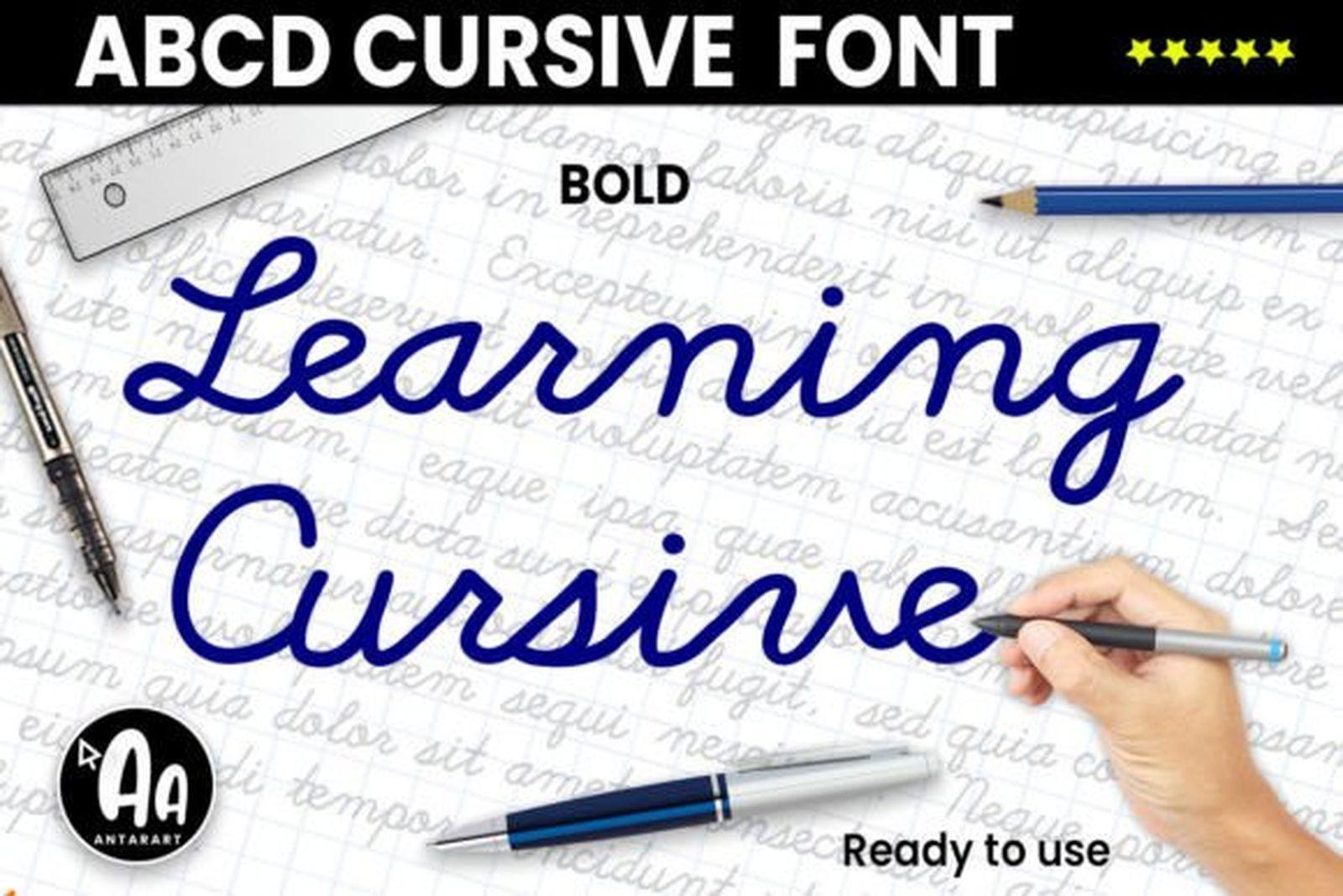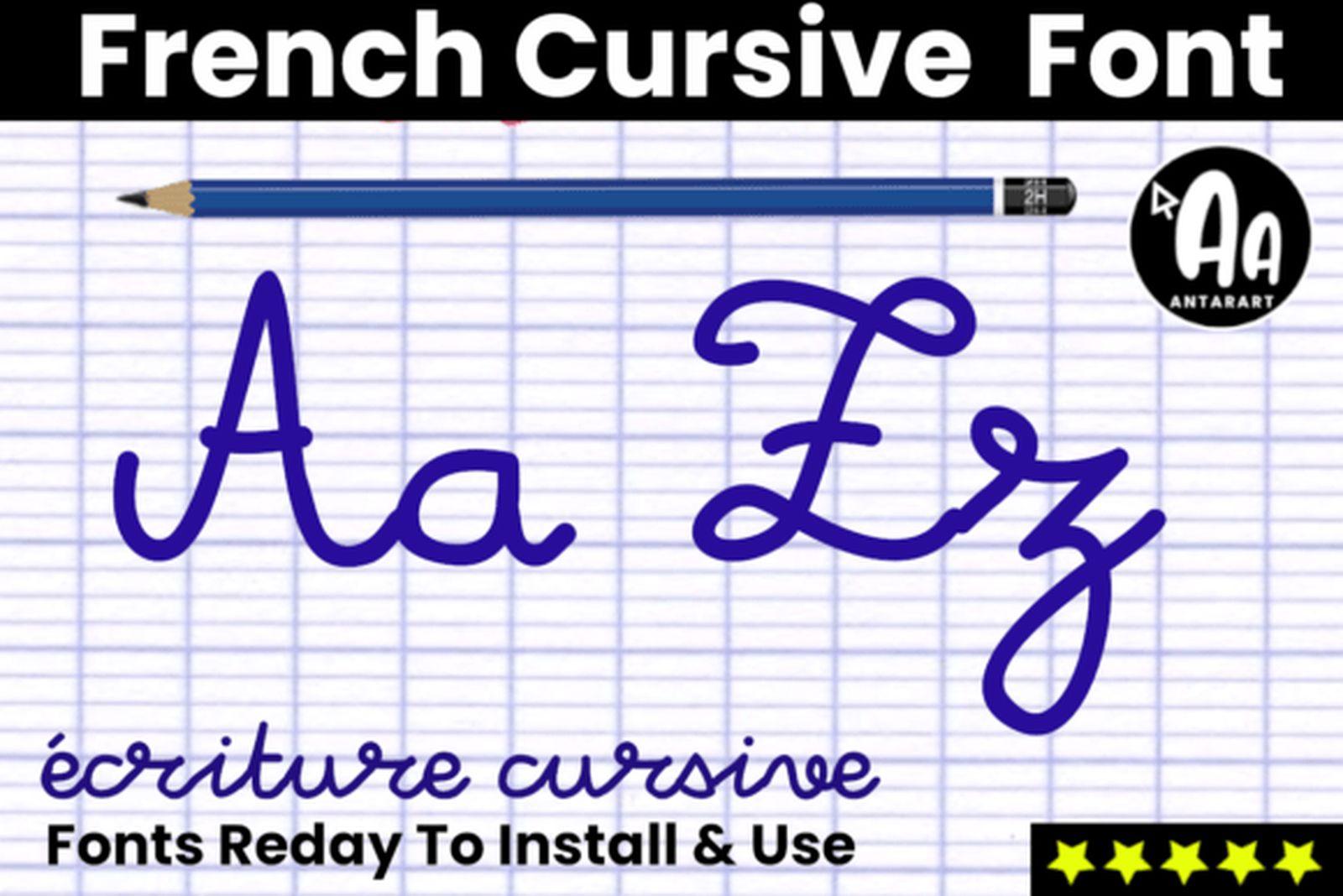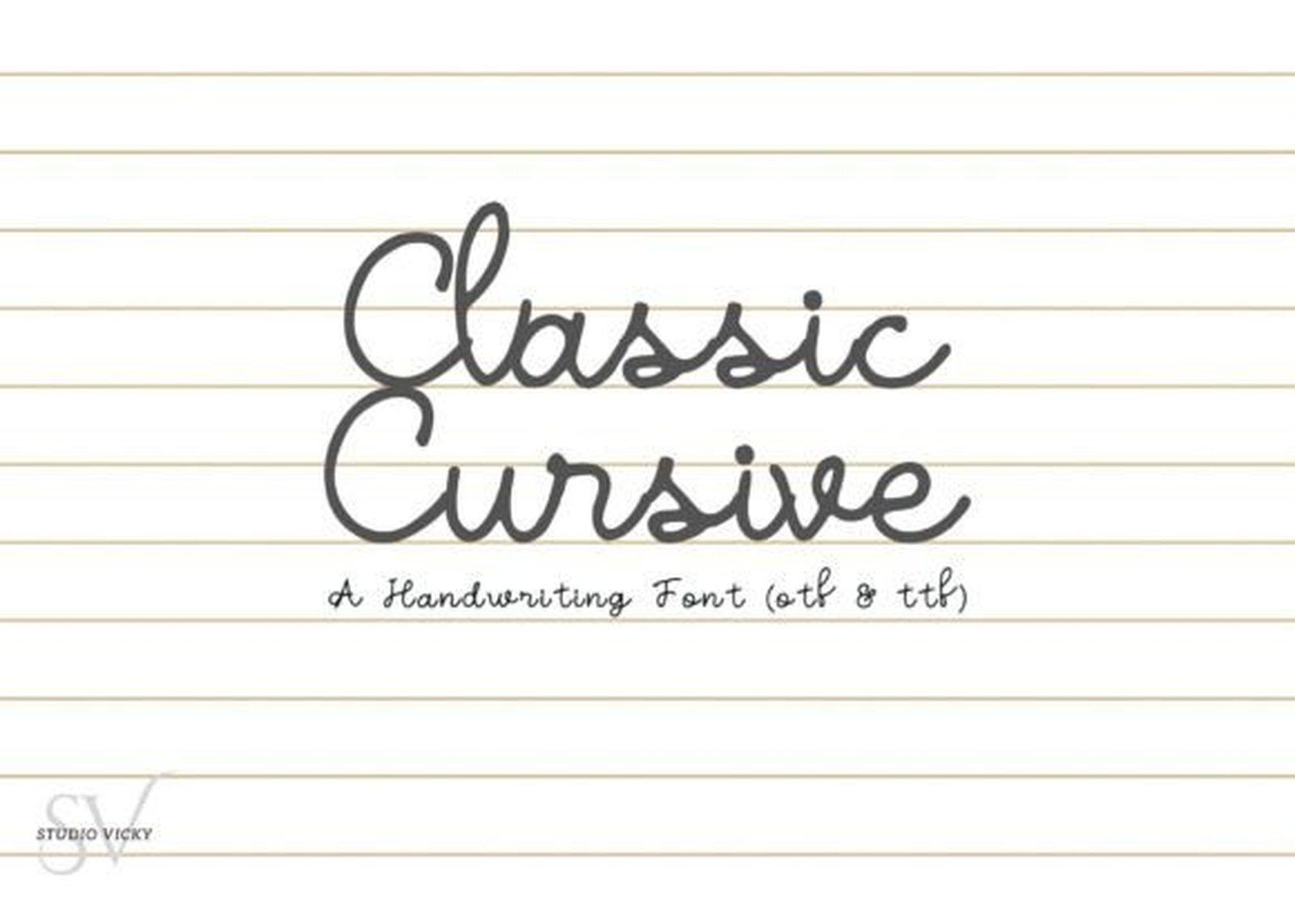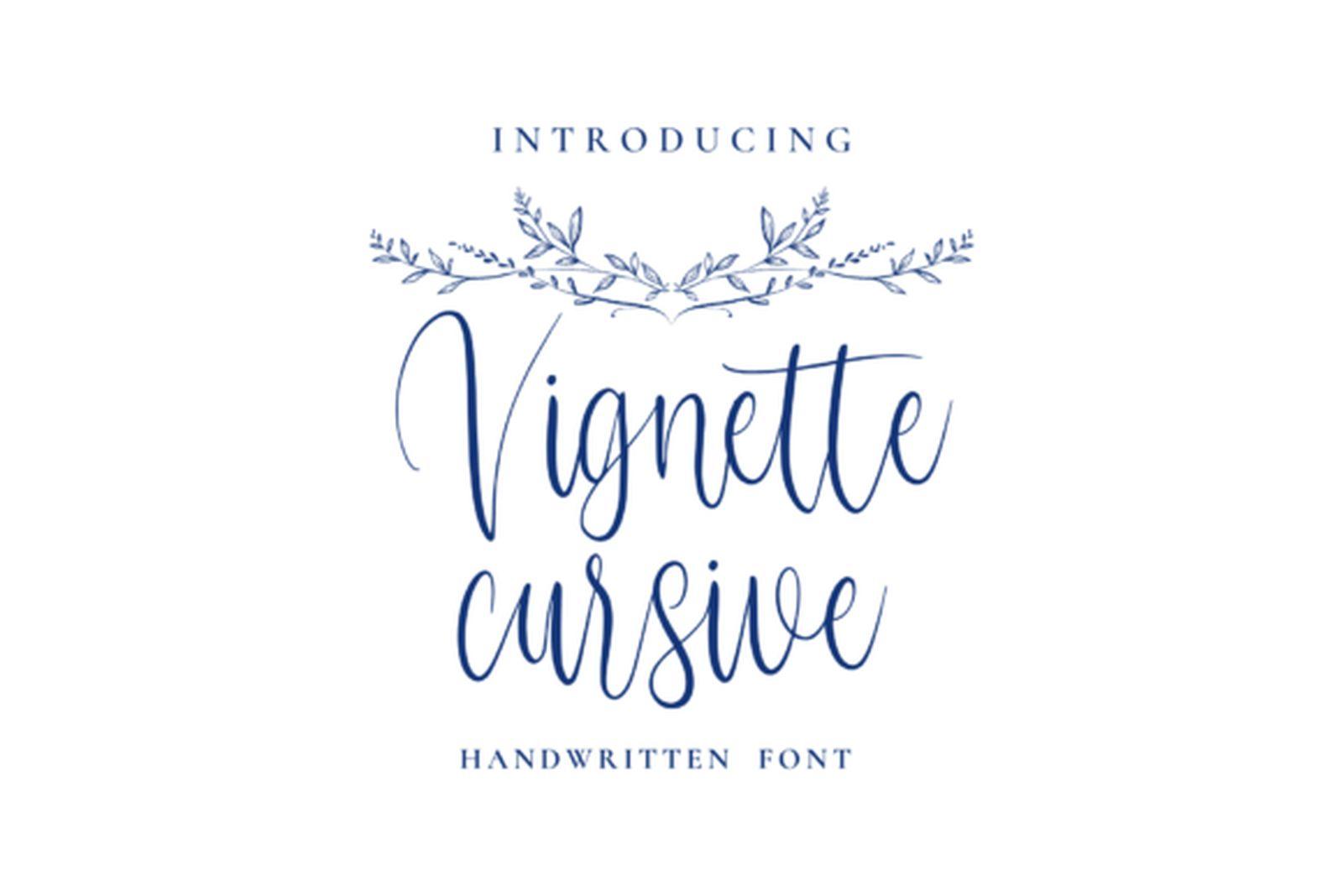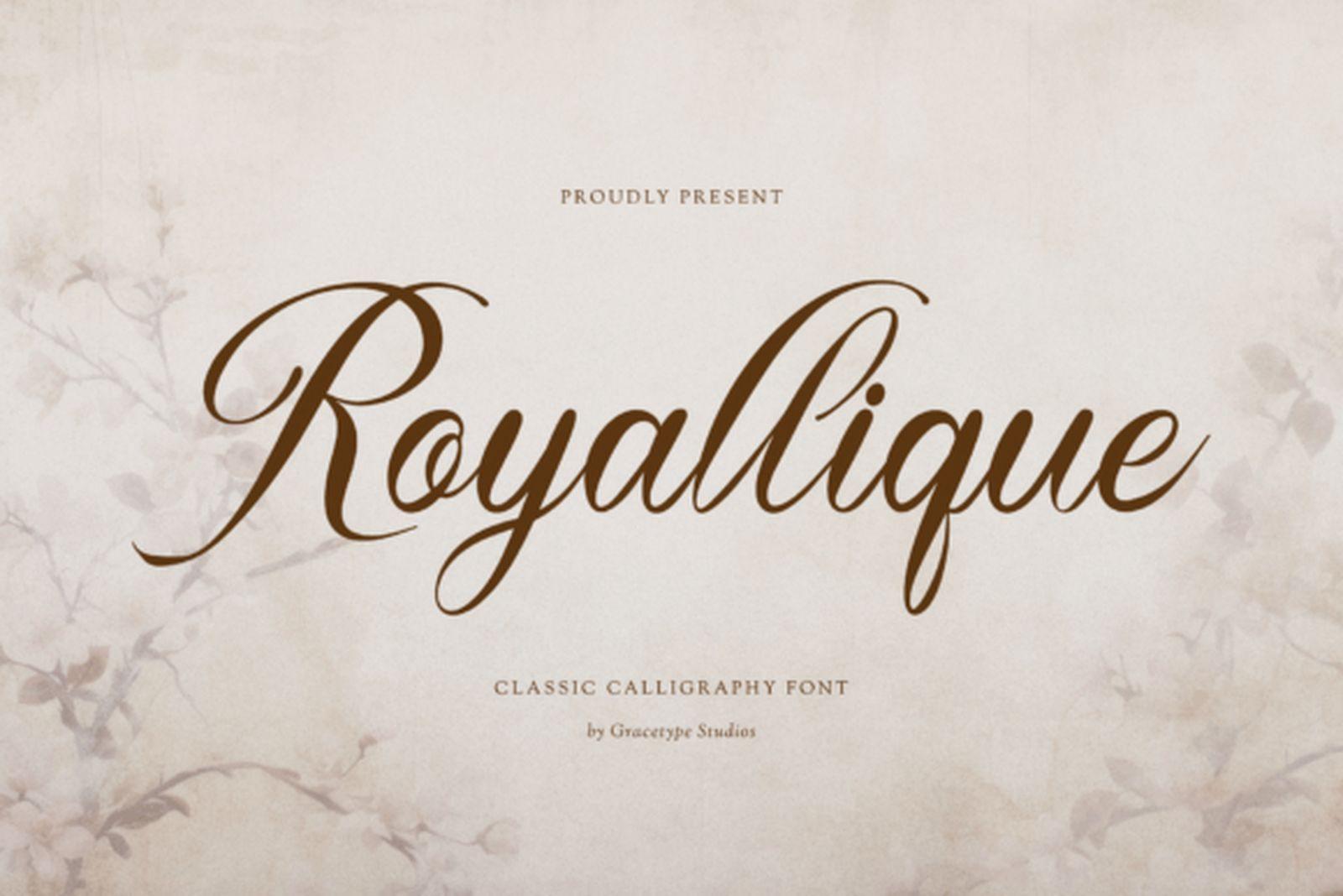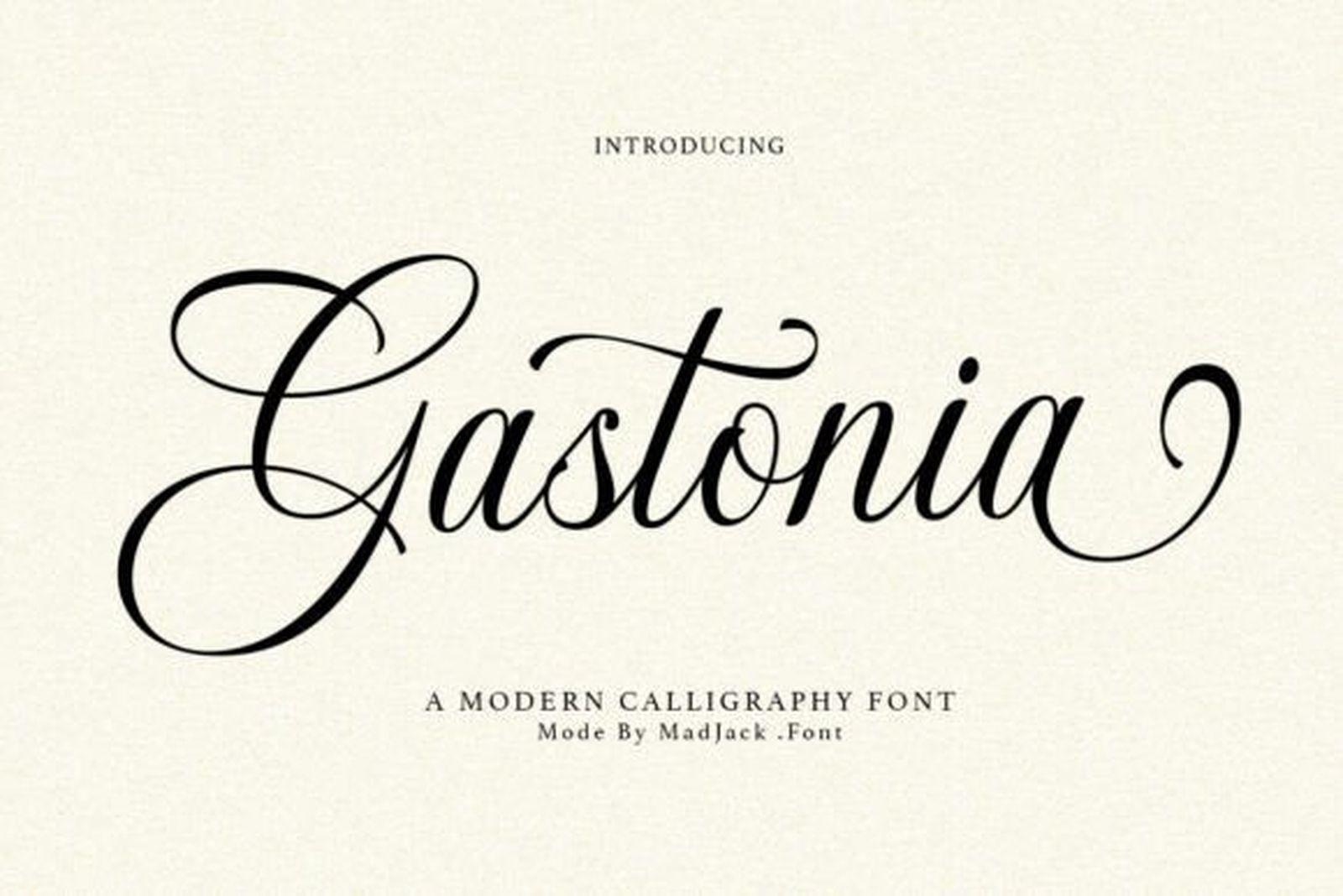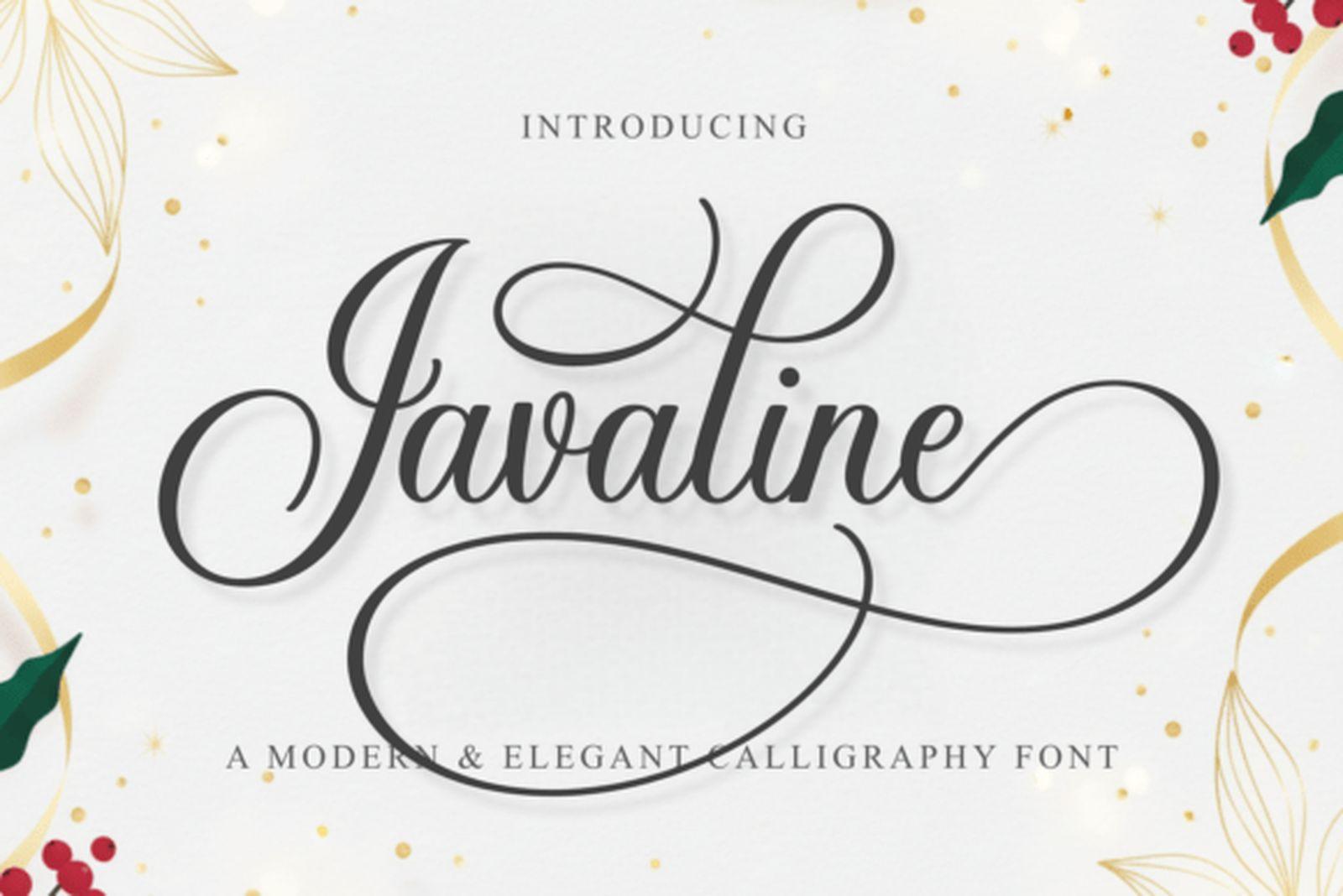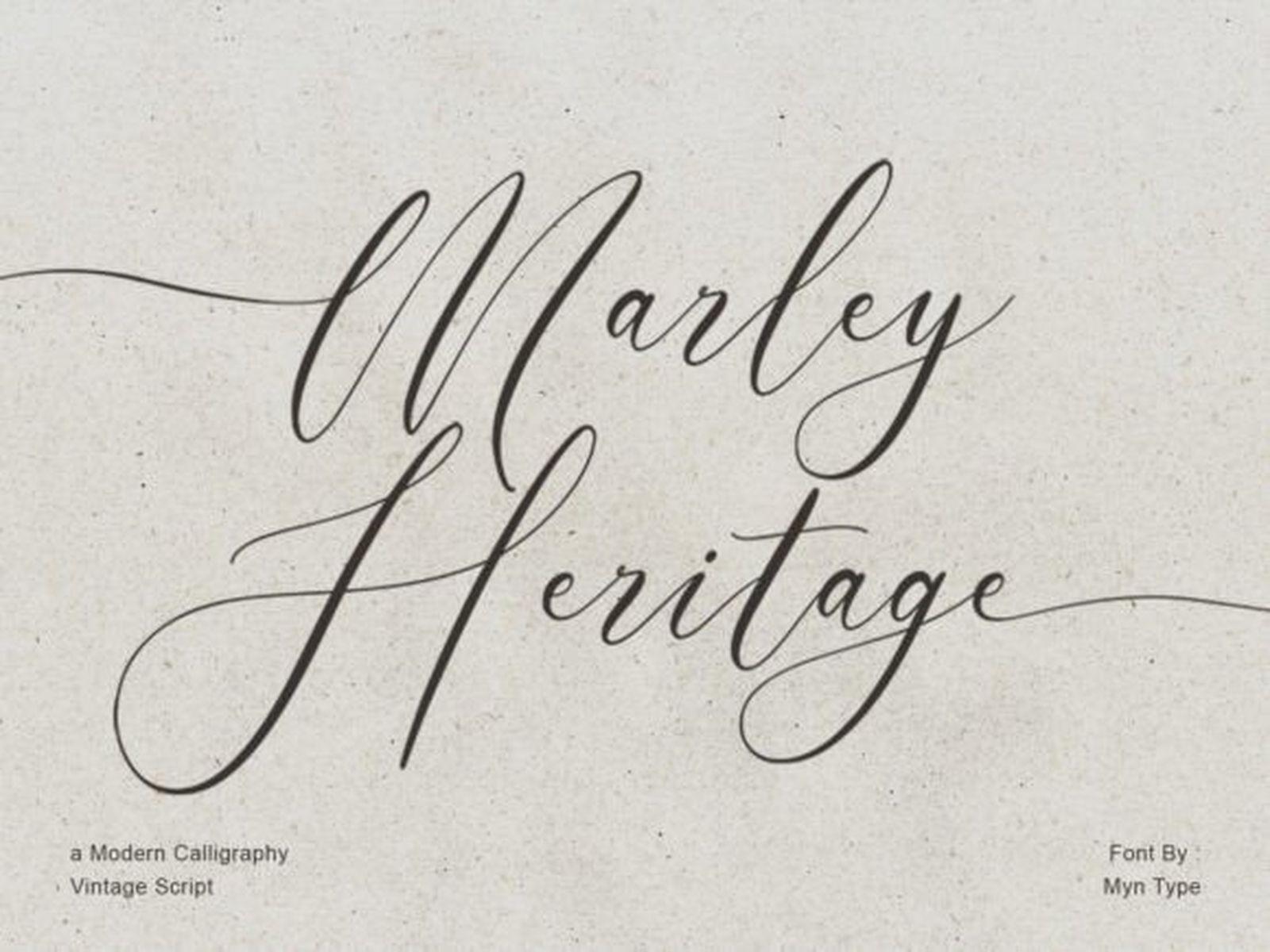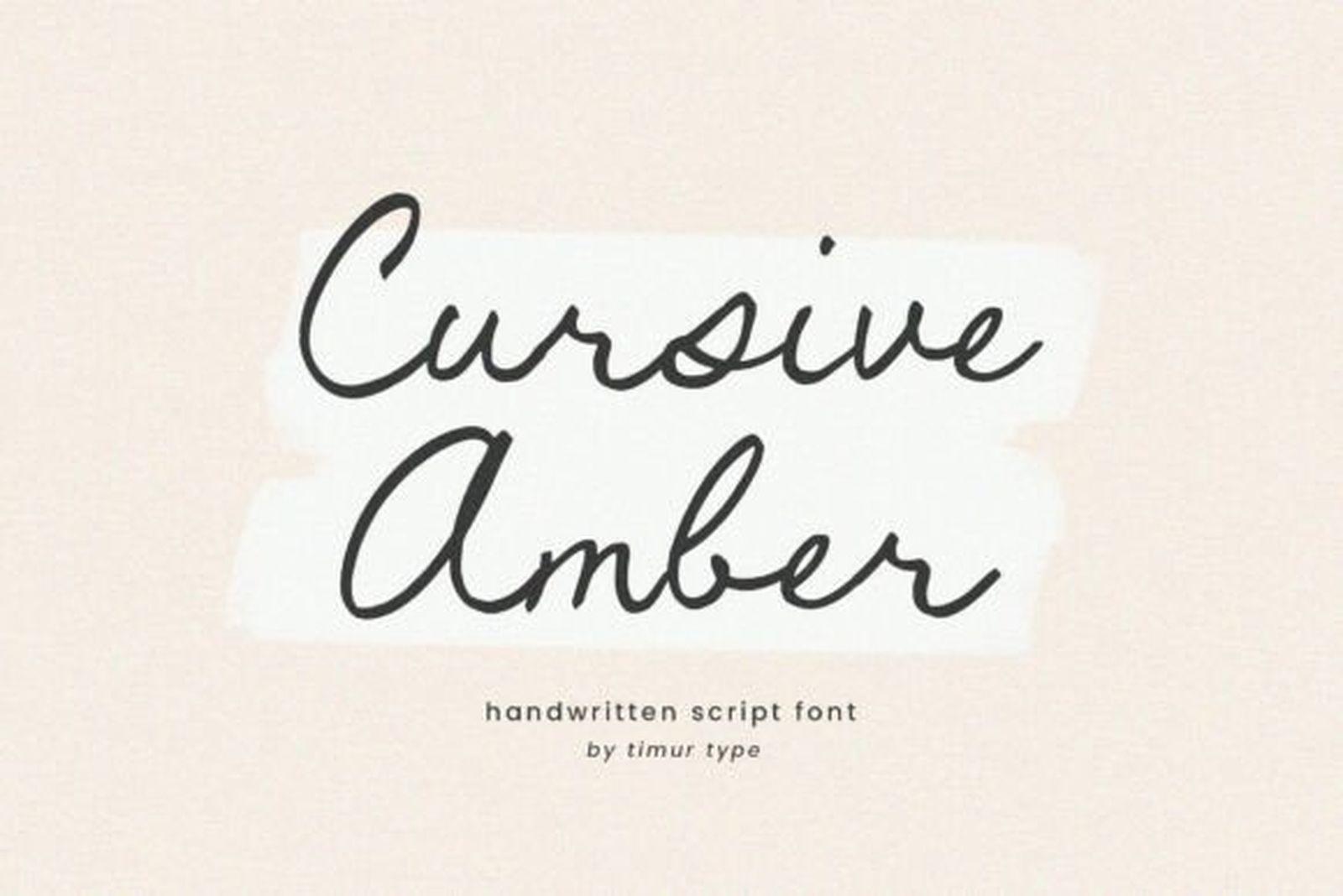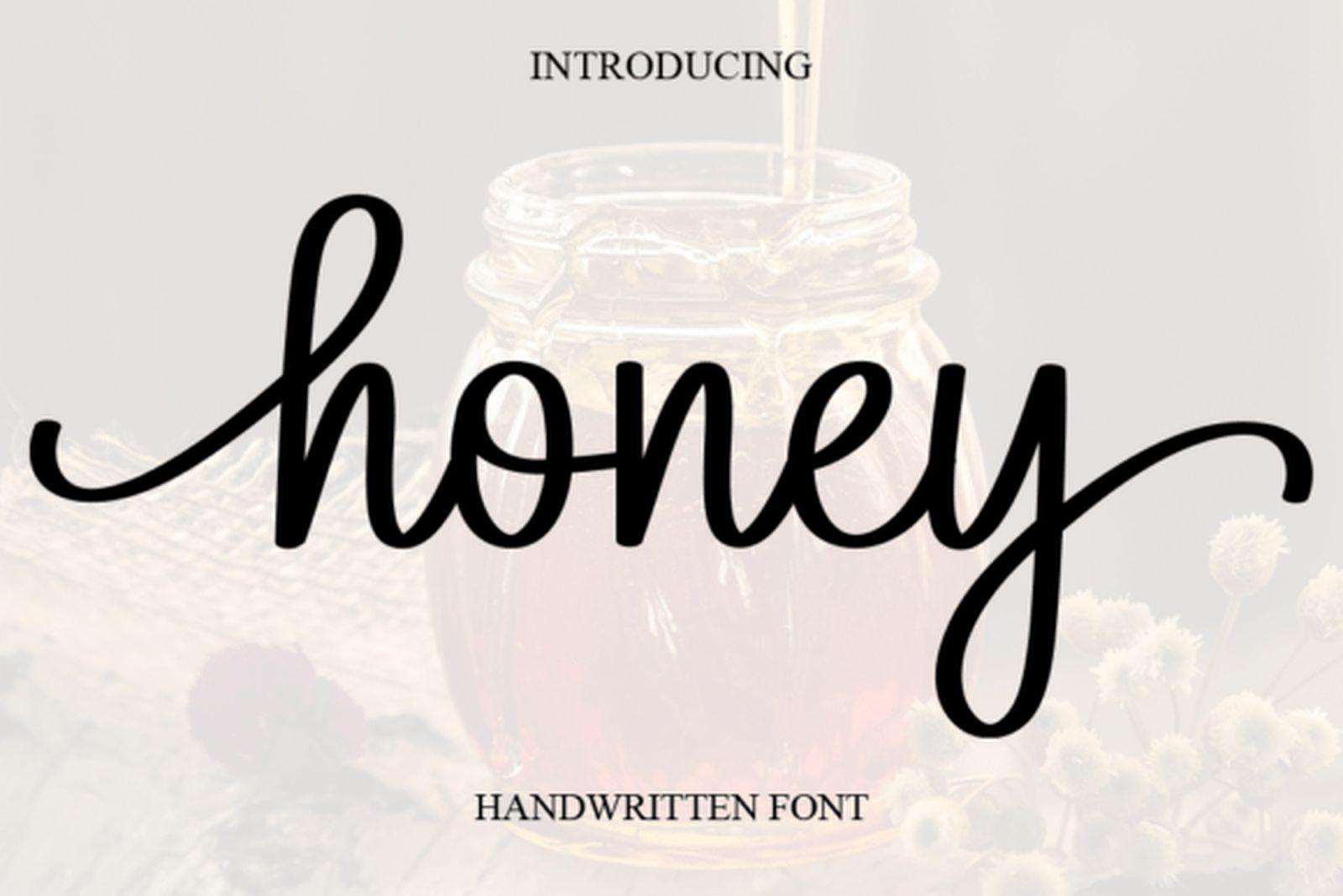
Cursive handwriting fonts collection cover with school cursive and signature script lettering, a fountain pen and lined notebook paper
Cursive Handwriting Fonts: 16 Styles from School Cursive to Signature Scripts
Cursive handwriting fonts cover a surprisingly wide range. At one end sits the joined-up school cursive people learned on lined paper; at the other, fast signature scripts that look dashed off with a pen. In between are calligraphy styles for invitations and relaxed handwritten scripts for labels, quotes and social posts.
This collection brings 16 of them together and sorts them by the job they do best. Each entry notes what the letters look like and where the font reads well, so you can match the style to a worksheet, a card, a logo or a wedding suite without testing every option yourself.
School Cursive Fonts
These three look like classic joined-up handwriting from a copybook. They suit worksheets, teaching materials and any design that should feel like a real handwritten note.
1. Abcd Cursive Bold Font by AntarArt
Abcd Cursive Bold Font by AntarArt, school cursive handwriting on lined paper
Best For: handwriting worksheets, classroom posters, teacher printables
Abcd Cursive Bold is textbook cursive: an even slant, rounded loops and letters that join the way children are taught to write them. The preview shows “Learning Cursive” in dark blue ink across ruled lines, with a hand holding a pen beside it.
The bold solid version reads clearly on printed worksheets and posters. On Creative Fabrica the same family also appears in separate dotted, outlined and arrow versions, which are made for tracing practice, so a full lesson set can stay in one consistent style.
2. French Cursive Font by AntarArt
French Cursive Font by AntarArt, French school cursive letters on grid paper
Best For: French-style worksheets, vintage notebook designs, bistro menus
French Cursive follows the French school model, labelled écriture cursive in the preview. The capitals carry distinctive looping entry strokes, and the letters sit on the blue grid paper typical of French exercise books.
Beyond teaching, the look works for designs that want a Parisian notebook feel, such as café menus, recipe cards or travel journals. Keep the size generous so the looped capitals stay clear.
3. Classic Cursive Font by Victoria Gates
Classic Cursive Font by Victoria Gates, thin monoline cursive handwriting on lined paper
Best For: letters, journaling printables, quotes in a handwritten style
Classic Cursive is lighter and calmer than the two AntarArt fonts: a thin, even line with modest loops, set on pale ruled paper. It looks like careful adult handwriting rather than a lesson model.
That makes it a good fit for printable letters, journal pages and quotes that should feel personal. Use it in dark ink on light backgrounds, since the fine stroke loses contrast on busy images.
Elegant Calligraphy Cursive Fonts
These five come from the calligraphy side of cursive: contrast between thick and thin strokes, decorative capitals and plenty of flourish.
4. Vignette Cursive Font by jackgridden
Vignette Cursive Font by jackgridden, thin blue calligraphy script with tall capitals
Best For: wedding stationery, place cards, delicate labels
Vignette Cursive is a fine blue calligraphy script with tall, narrow capitals and small lowercase letters, framed by a laurel ornament in the preview. The overall effect is quiet and romantic.
It fits wedding invitations, place cards and boutique labels where the lettering should feel light. Pair it with a simple serif for details, and avoid very small sizes, where the thin strokes fade.
5. Royallique Font by Gracetypestudio
Royallique Font by Gracetypestudio, classic calligraphy script in brown ink on aged paper
Best For: certificates, vintage labels, formal invitations
Royallique is classic calligraphy in the traditional sense: strong contrast between hairlines and downstrokes, a sweeping capital R and brown ink on aged paper in the preview. It reads as old-world and formal.
Use it for certificates, heritage packaging or invitations with a vintage theme. It carries a headline on its own, so keep supporting text in a restrained serif.
For an all-round cursive handwriting font, start with Cowgirls: it reads clearly at any size and over photos. For a lettering style that looks truly written by hand, Classic Cursive gives the most natural result.